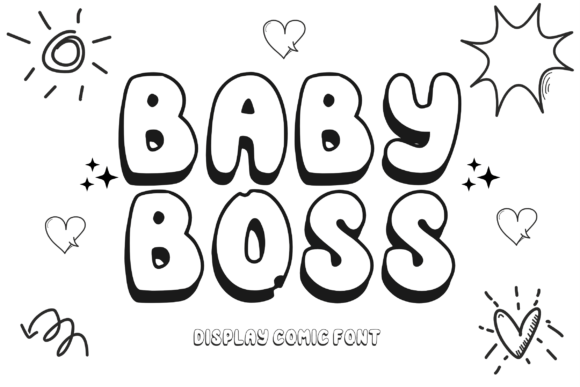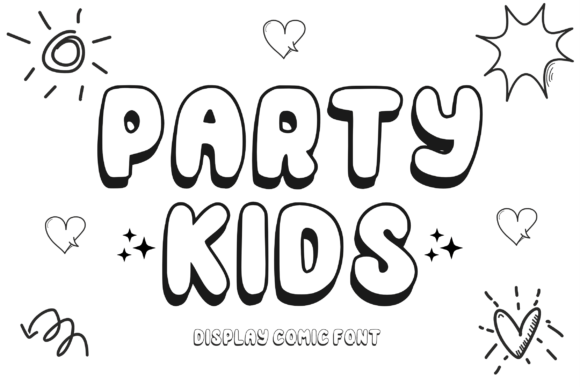
Introduction to Great Kids Font
Do you ever find yourself stuck in a creative rut, longing to add a dash of whimsy to your designs? Perhaps it’s the perfect time to discover a new design resource that will breathe life into your next project. As you sit down at your desk, surrounded by scraps of paper and half-finished ideas, a spark of inspiration strikes – what if you could turn an ordinary item into a work of art?
Enter the Great Kids Font, a vibrant and modern Outline font that brings a touch of magic to your designs. With its adorable characters and transparent background, this font is a game-changer for designers looking to add a high-quality, unique twist to their projects. Whether you’re working on a creative project or simply looking for a free download to enhance your designs, the Great Kids Font is an invaluable resource that will take your work to the next level.
Key Features of Great Kids Font
- High-quality design resource ideal for creative projects, including children’s books, educational materials, and family-friendly websites.
- Transparent background allows for easy layering and customization in your design projects.
- Unique, playful characters and glyphs designed to evoke a sense of fun and imagination in your creative work.
- Perfect for designers, artists, and educators seeking a professional, yet approachable font for their next creative project.
Honest Review: Great Kids Font
As a designer, I’m always on the lookout for high-quality design resources that can elevate my creative projects. Recently, I stumbled upon the Great Kids Font, and I must say it’s a gem.
- ✨ The font is incredibly versatile and can be used for a wide range of creative projects, from children’s books to educational materials.
- ✨ The transparent background option makes it easy to integrate the font into any design project.
- ⚠️ The font is not suitable for complex typography projects, as it can be a bit too playful and childish.
Overall, I’m really impressed with the Great Kids Font. It’s a great addition to any designer’s toolbox, and I would definitely recommend it to fellow designers looking for a high-quality, free font.
How to Use Great Kids Font
The Great Kids Font is a high-quality, free download design resource perfect for any creative project. With its transparent background, this font is easily customizable to fit any design need.
Tips for Getting the Most Out of Great Kids Font
To get the most out of the Great Kids Font, use it in combination with other design elements to create a visually appealing design. Experiment with different font sizes, colors, and arrangements to find the perfect look for your project.
The Great Kids Font is perfect for a variety of design projects, including:
- Children’s book illustrations
- Party invitations and decorations
- Education and learning materials
Alternatives to Great Kids Font
2. Pacifico
Pacifico is a beautiful, elegant font perfect for high-end design projects. It features a transparent background, making it ideal for use on images or as a design resource.
When to use: Pacifico is suitable for luxury brands, wedding invitations, or any creative project that requires a sophisticated and elegant feel.
Comparison to Great Kids Font: Pacifico has a more refined and sophisticated feel compared to Great Kids Font, making it a better choice for high-end designs.